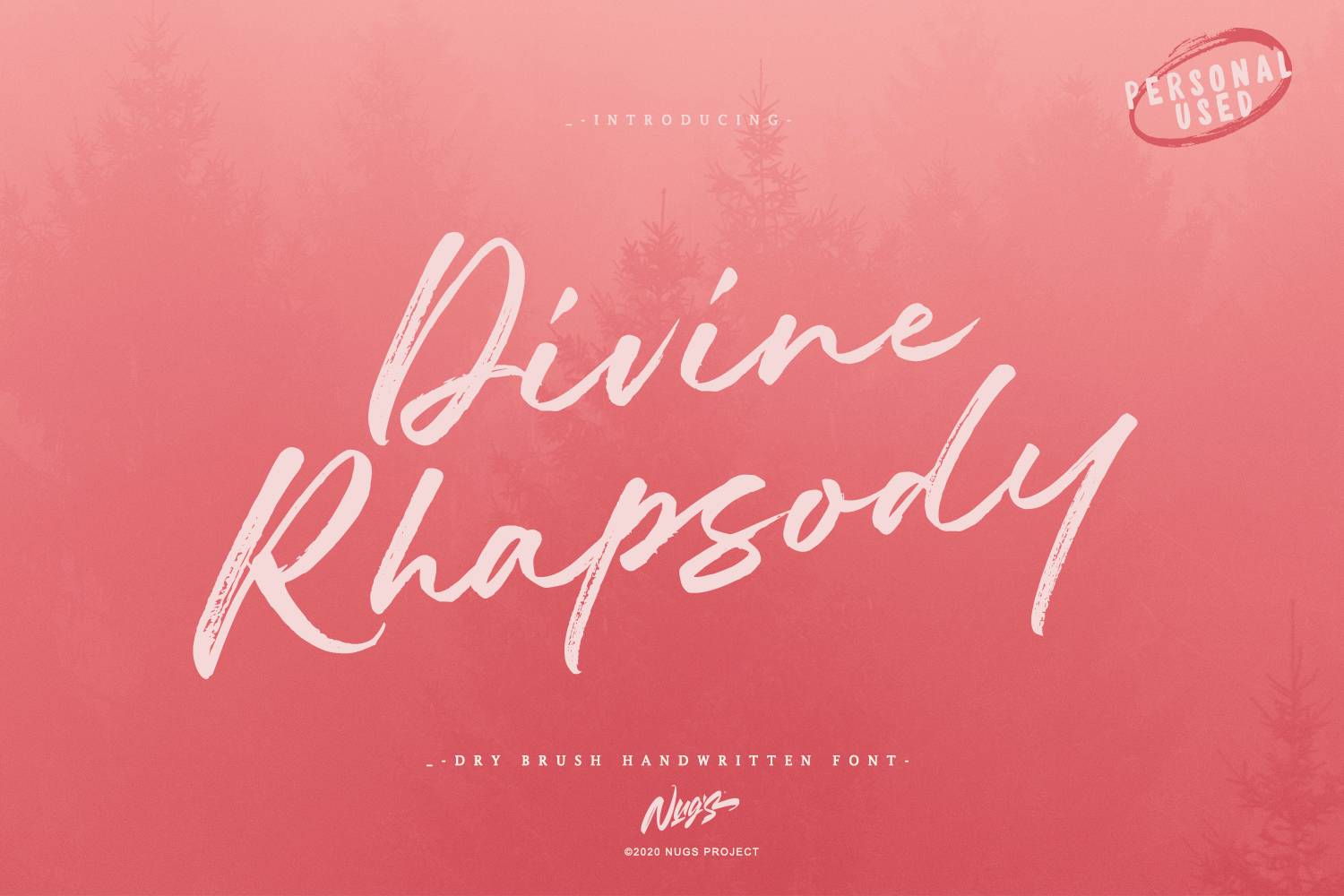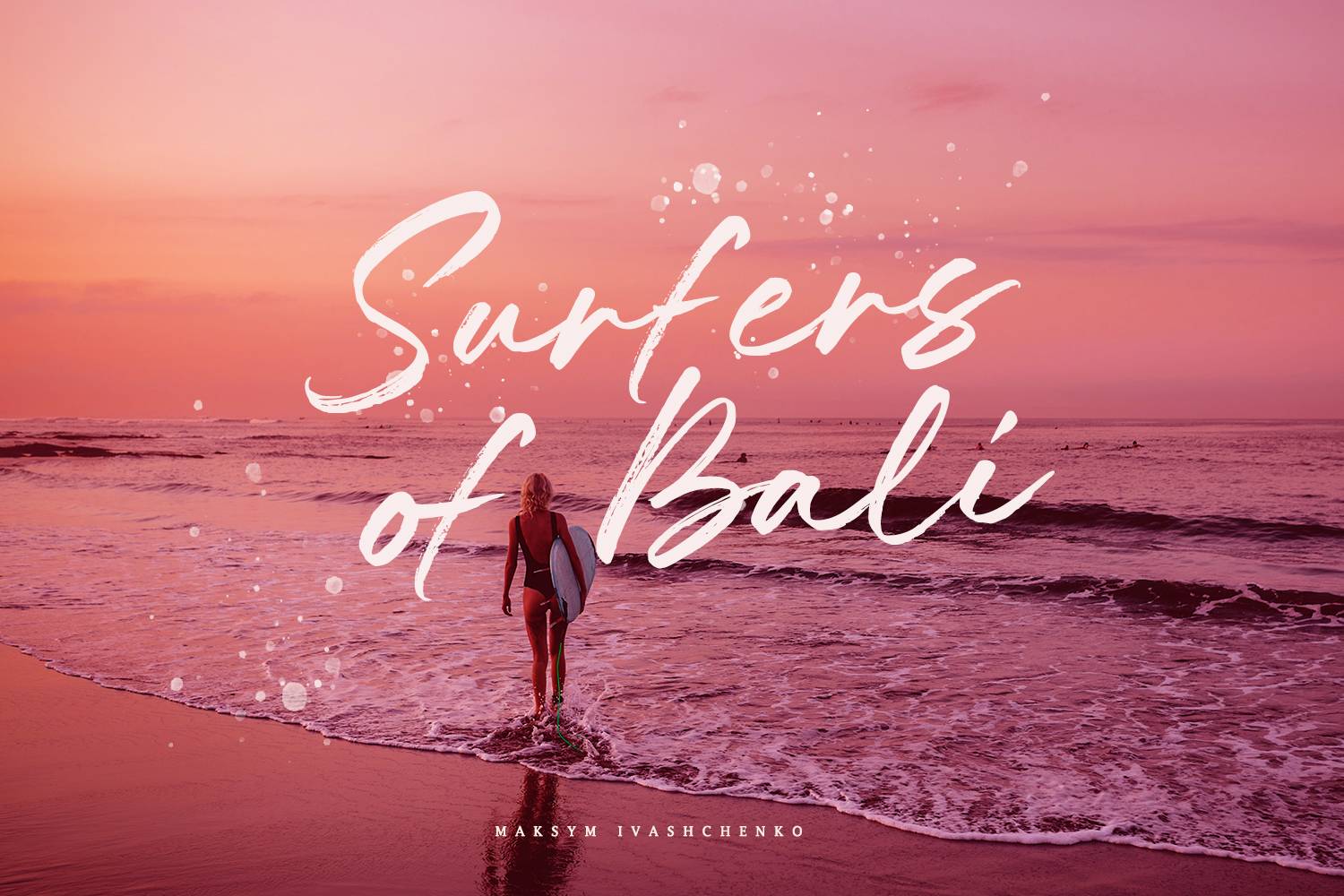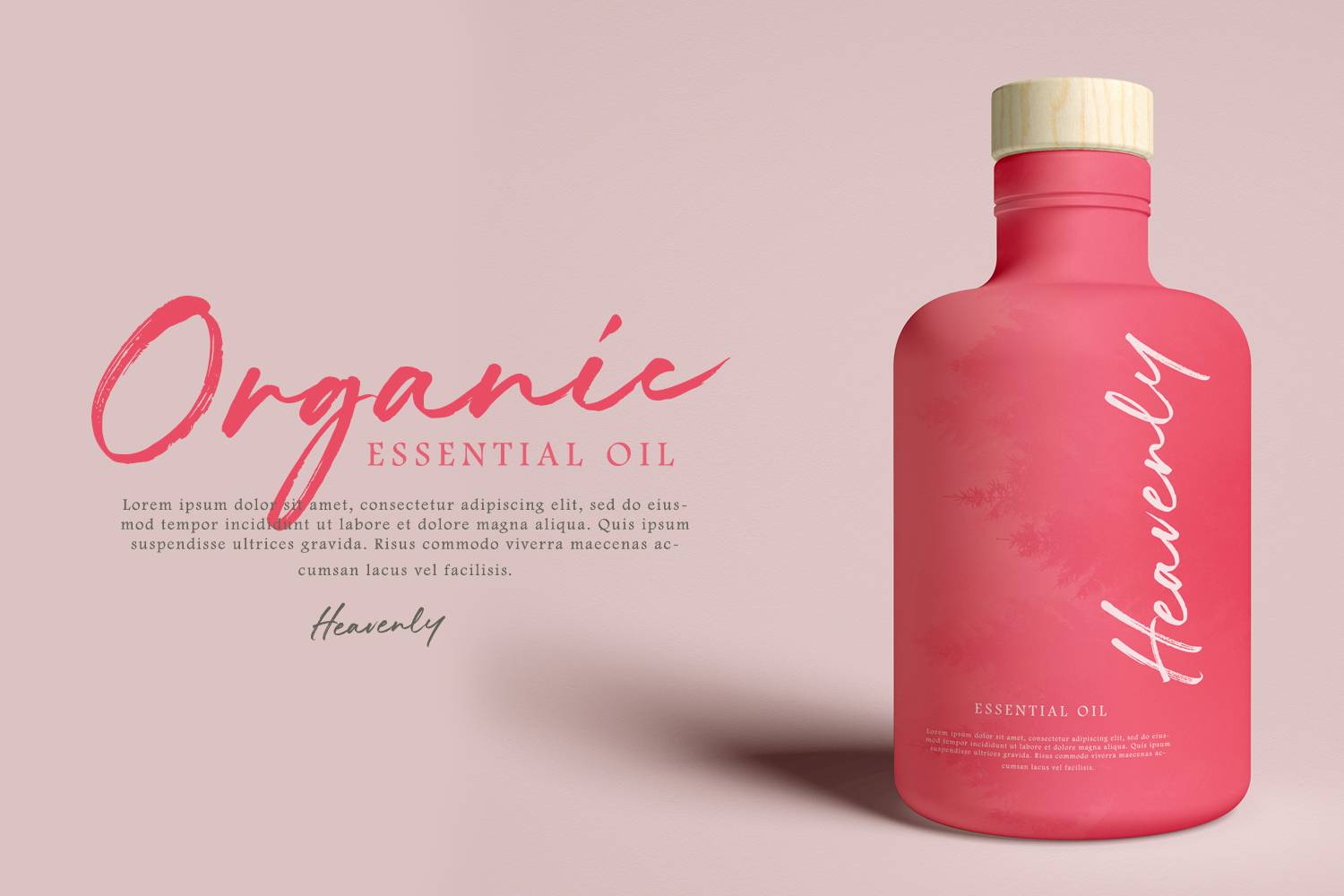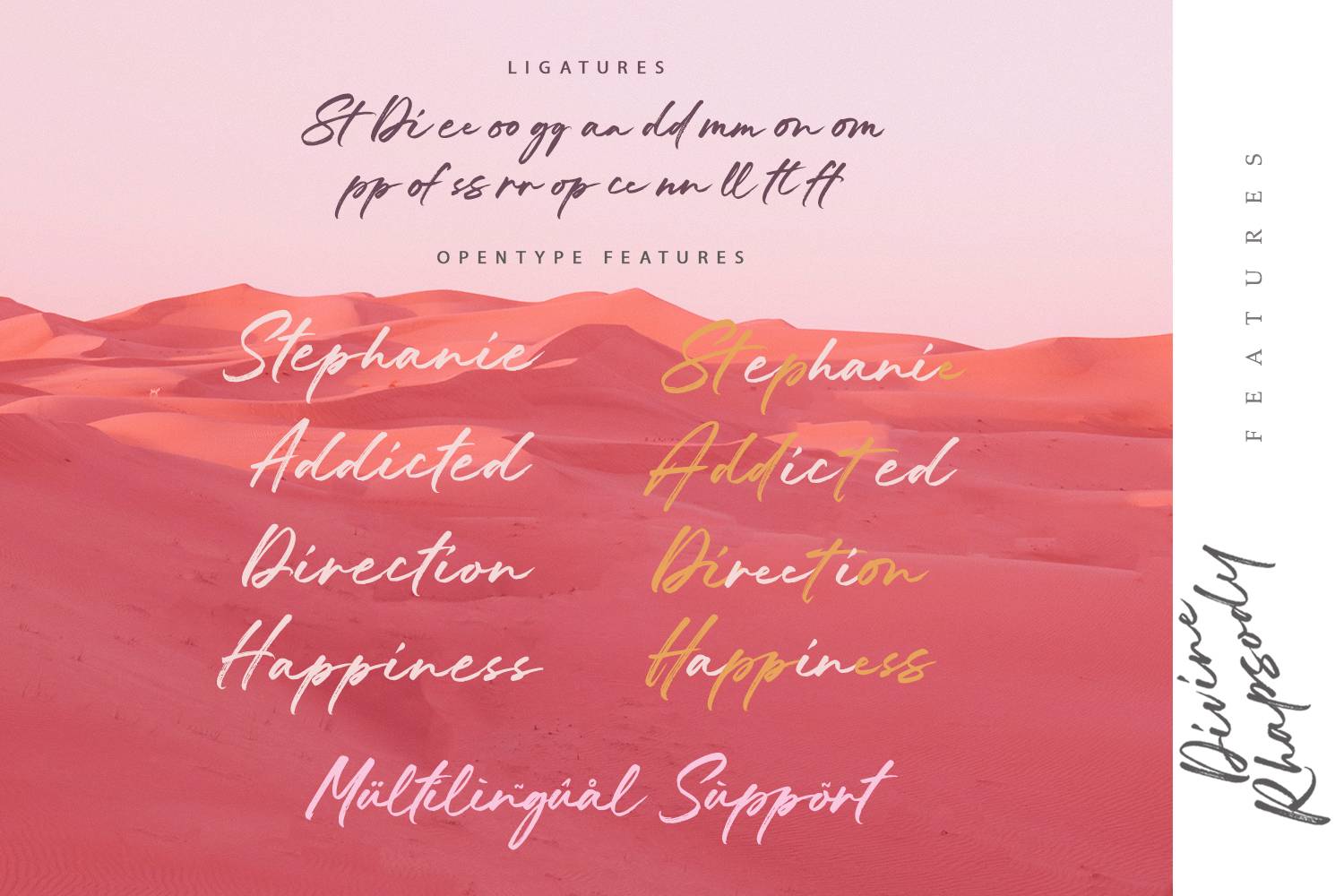
Divine Rhapsody is a stylish script font with a lively, hand-painted feel characterized by its flowing, brushstroke texture and natural, slightly irregular forms. It delivers an energetic and personal touch, making it perfect for creative branding, invitations, and editorial designs that seek an authentic, artistic vibe. This font works especially well in headlines and logos where a warm, expressive personality is desired.
Divine Rhapsody Font
About Divine Rhapsody Font
| Font family | Divine Rhapsody Font |
| Release date | 2020-12-18 |
| Designer | Andrie Nugrie |